Are you looking to make your resume to stand out? Surprisingly, it’s the little details that can make the biggest differences. Making a statement with a professional resume font choice can help you perfect your resume presentation, layout and structure and can leave a great impression on your hiring manager.
Not sure where to start? Below we’ve put together 30 of the best resume fonts so that you can stand out from the crowd and make a great first impression.
01. Gill Sans
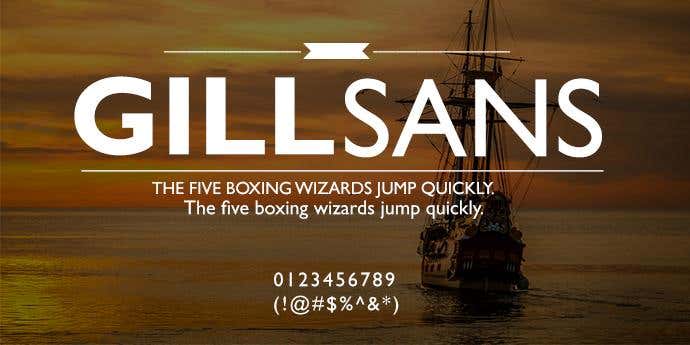
This British-designed Serif presents a classic and clean text, perfect for any resume. The font works well with both small and large font sizes, making it easy to adjust to suit the amount of information you want on your resume. Since it’s standard weight it’s a little thicker than the average font, yet perfect to make the statement you need.
02. Didot
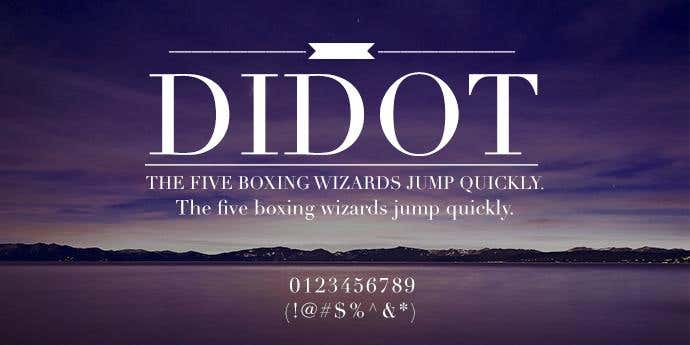
Didot is a professionally presented font, which derived its name from a French printing and type producing family, who were among the first to set up a printing press in Greece.The typeface with its tall stems, gracefully transitioning into thin hairlines, creates a natural fluency to the text. If you’re looking for elegance, this is your go to font.
03. Avenir
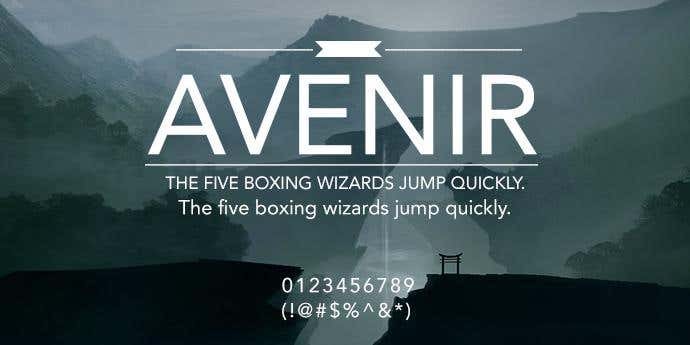
With evenly distributed thickness across its text, Avenir is a clean and neat san-serif font. It is geometrically proportional and has a variety of weights you can use to separate your resume. If you’re looking for a modern touch to your document, this is the design for you.
04. Bodoni MT
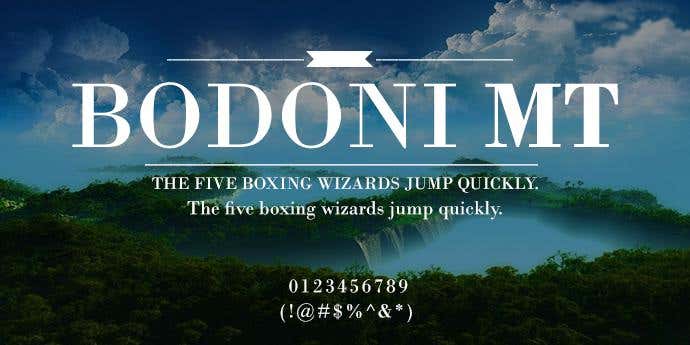
This strong font has a smooth transition between thick and thin strokes, creating personality to any text. It works best with thick spacing and larger print in order to bring out its classic characteristics. On a resume it is best left for titles or subheadings to break up the structure of the document.
05. Cambria
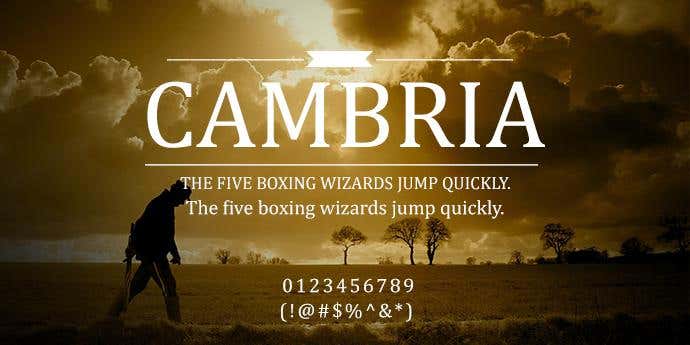
You may be familiar with the font due to its popular distribution across Microsoft Office and Windows programs. It was created by a dutch designer for the use of body texts both on-screen and off-screen. This serif font has high legibility both with small texts on paper and low resolution on screen, perfect for your resume!
06. Lucida Sans
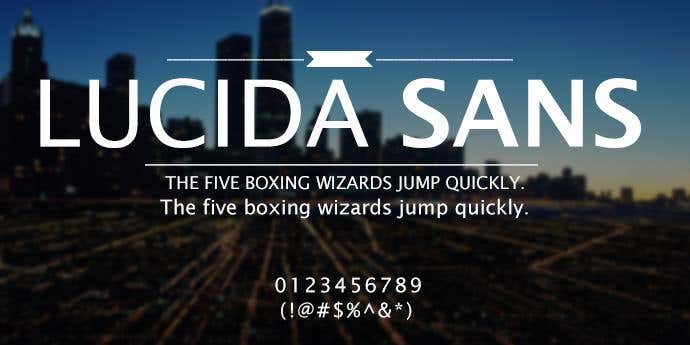
This classic font uses a large x-height and open counters to produce a well legible font. If you’re using a larger font size, reducing your letter spacing also can present professionally to your hiring manager. This font works well for titles and headings used to separate your resume.
07. Garamond 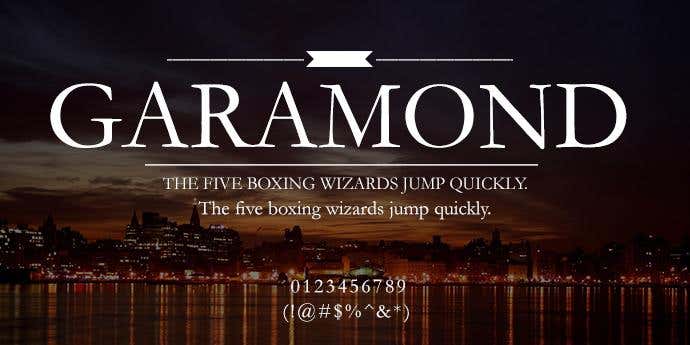
As a timeless and long-standing serif, this font has been remodeled and improved to serve as an effective text for your resume. It’s characteristically small eye of the ‘e’ and bowl of the ‘a’, help fit a large amount of text on the page and maintaining legibility. If you’re looking to keep your style simple and sophisticated, this is perfect resume font for you.
08. Georgia
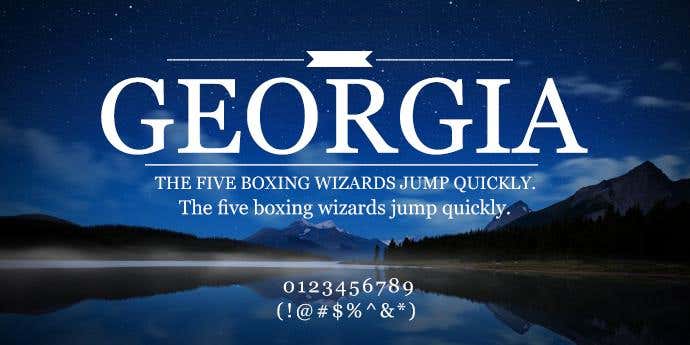
With alternating thick and thin strokes, a larger than normal x-height and it’s blacker than normal bold, this resume font has personality and clarity. It is easy to read on all sizes and all resolutions and will complement your resume both on-screen as a soft copy or a hard copy on paper.
09. Proxima Nova
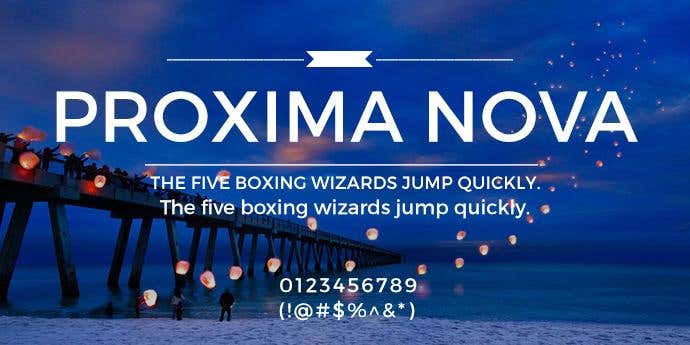
This geometric font, uses softened edges and rounded curves to create a subtle gentle tone to the text. This typeface is available in eight weights and three different widths, providing great variety to your resume.
10. Computer Modern
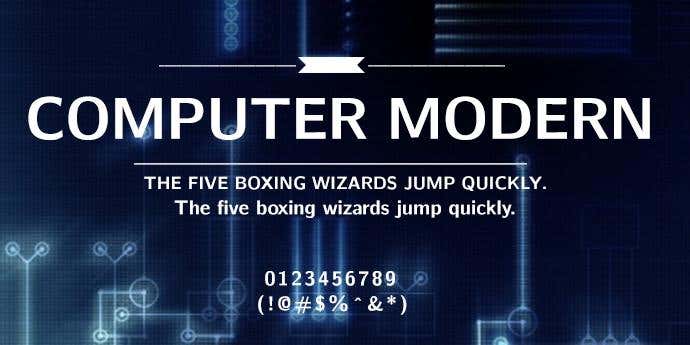
You may have seen this modern serif font widely used across scientific documents and publishing as it has an effective contrast between thick and thin strokes. It is also effective for mathematical use due to its large size for creating legible base letters.
11. Basic Sans
With an evenly maintained weight across all its lettering and well balanced counters, this resume font is simple and neat. You really don’t need much more than simple for your resume and Basics Sans provides this legibility with a touch of character.
12. Trebuchet MS
Designed for Microsoft Corporation in 1996, this resume font is a humanist sans-serif. It takes inspiration from traditional letterforms such as those seen on ancient Roman buildings. Keeping it simple and neat, this font enhances the content of your resume and provides good presentation.
13. Optima
This humanistic san serif typeface was inspired by Roman and Italian stone carving. Its open counters and fluent transition between thick and thin strokes create a traditional yet graceful tone to the text. This font is ideal to add a touch of professionalism to your resume!
14. Palatino Linotype
This resume font comes from the old-style Palatino serif typefaces, inspired by the effects of a broad nib pen. Palatino Linotype adds a modern touch to traditional this traditional style. It is widely used across modern versions of microsoft software. If you are looking for a modern feel of a traditional style, this is the font for you.